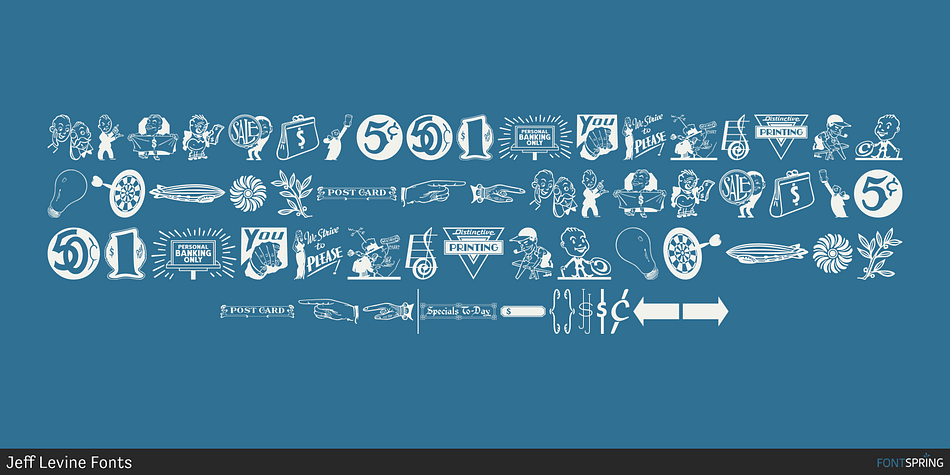
Message Helpers JNL Regular
Message Helpers JNL is a dingbat font published by Jeff Levine Fonts.
More cartoon illustrations, sales builders, ornaments, embellishments and miscellany come your way with Message Helpers JNL; all re-drawn from vintage source material.